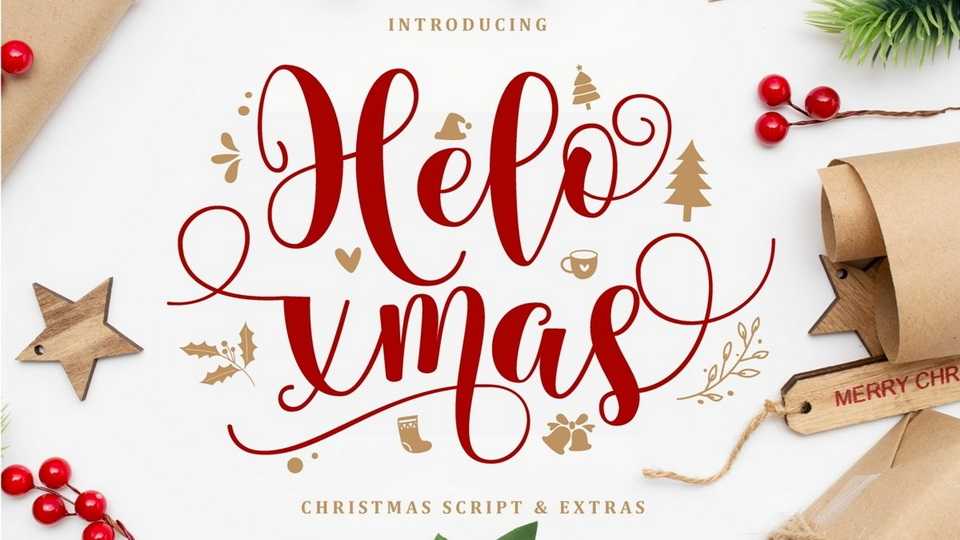
Download Helo Xmas font, a warm and festive handwritten typeface. Helo Xmas is ideal for holiday-themed greeting cards and for any crafting project that requires a romantic touch.
Designer: Gilar Studio